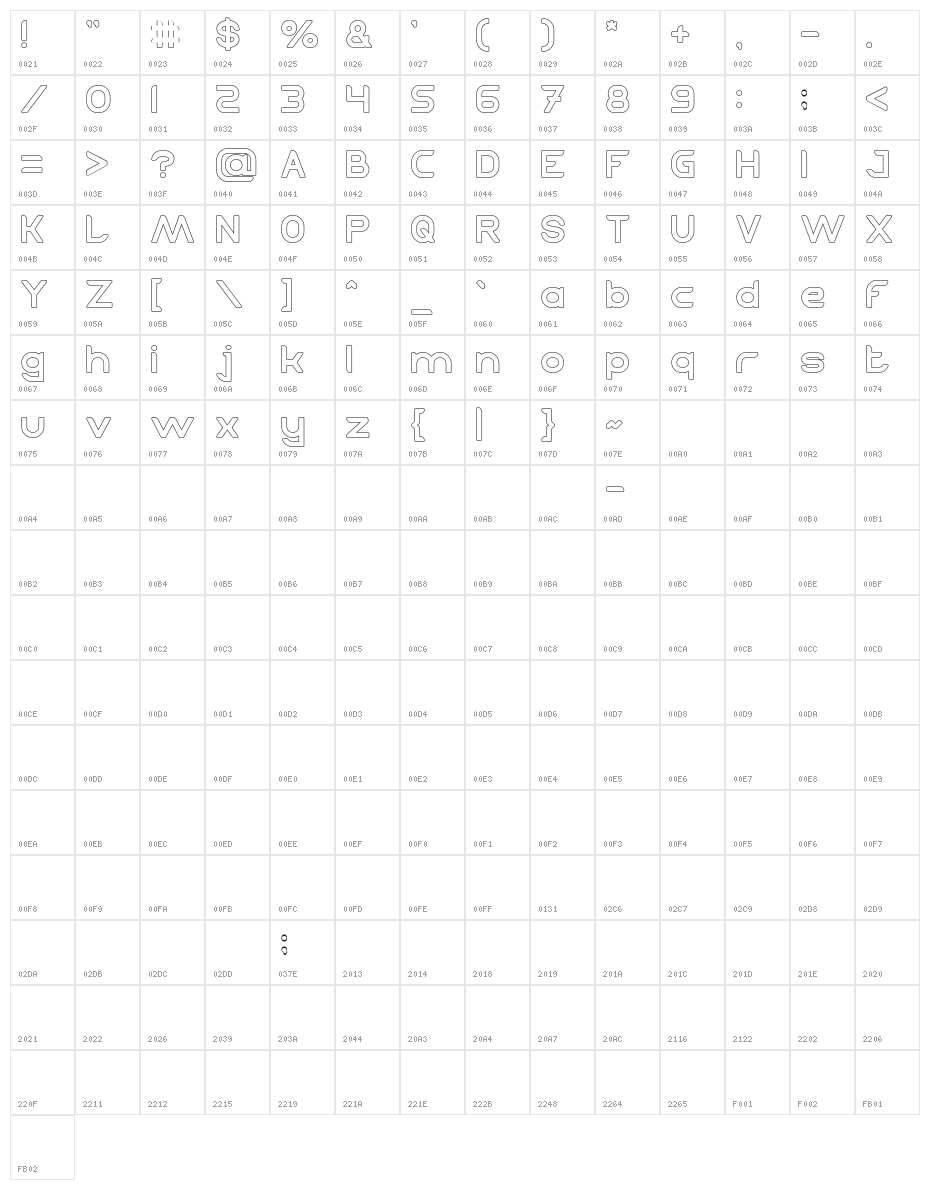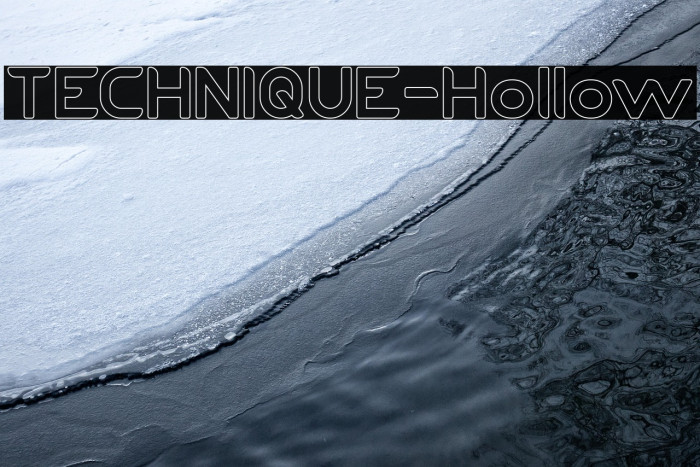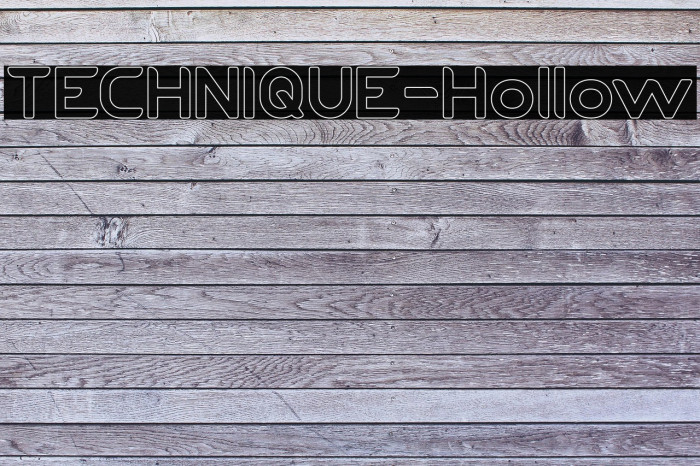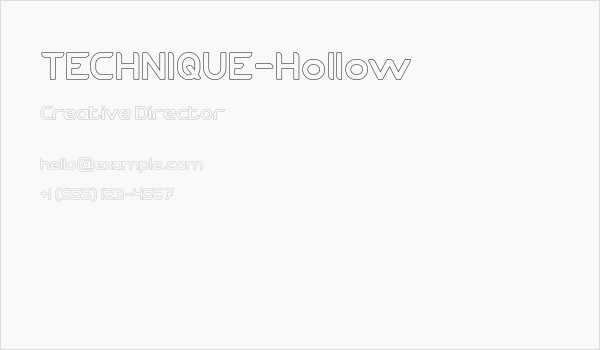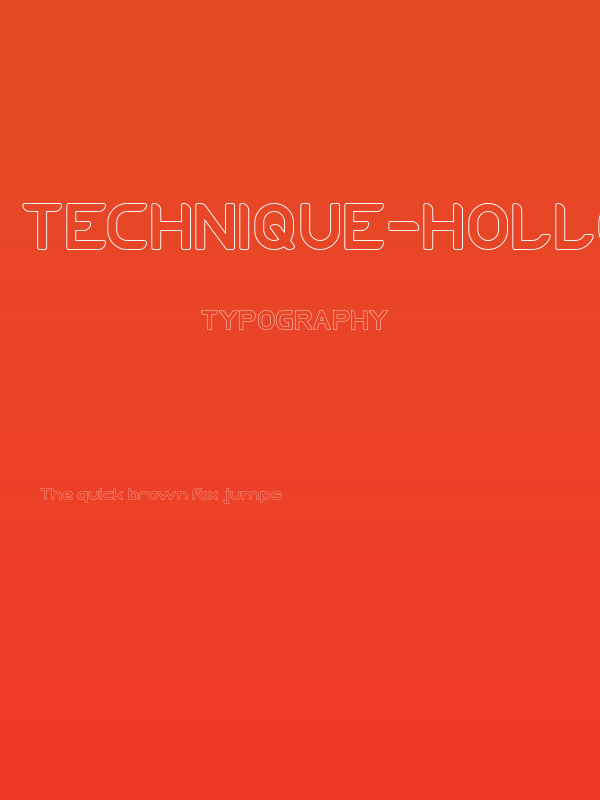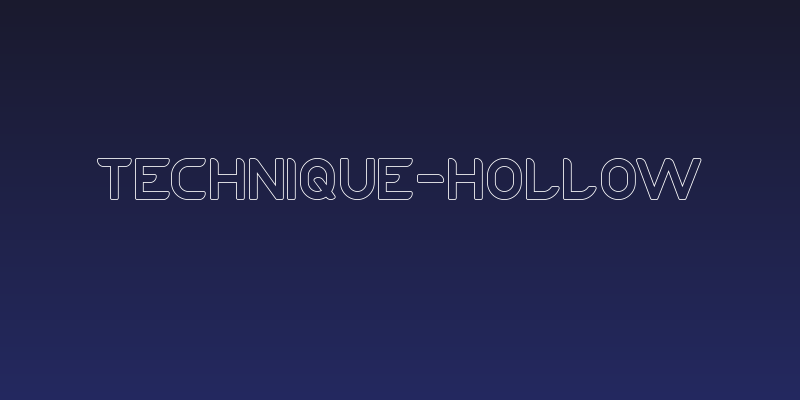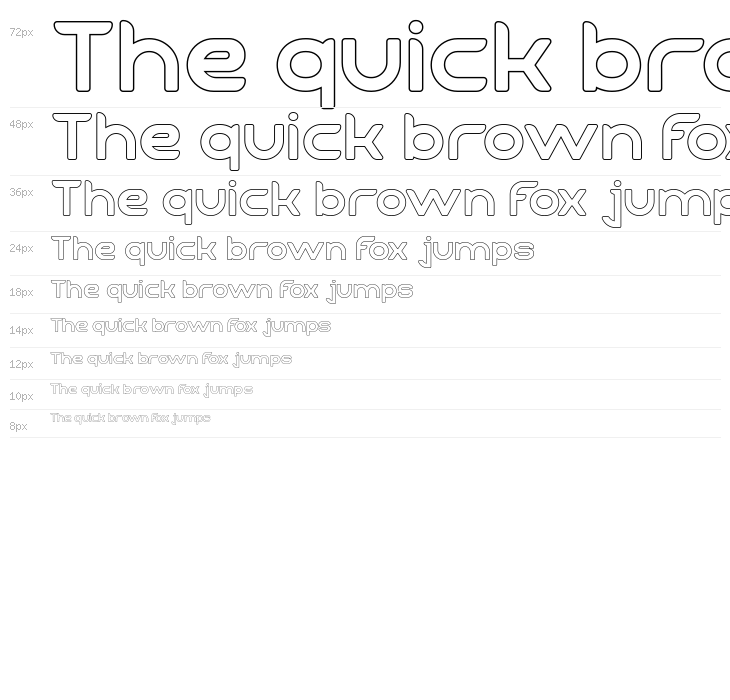
TECHNIQUE-Hollow Font
TECHNIQUE-Hollow Description
This font features a hollow, outlined design that gives it a modern and futuristic appearance. The characters are geometric and uniform, with clean lines and rounded edges that create a sense of openness and clarity. The uppercase and lowercase letters maintain a consistent style, while the numerals and special characters complement the overall aesthetic. This font's hollow nature makes it ideal for designs that require a light and airy feel, while still maintaining readability and impact.
TECHNIQUE-HOLLOW UPPERCASE
TECHNIQUE-HOLLOW LOWERCASE
TECHNIQUE-HOLLOW OTHER CHARS
| Proposed Projects | Ideal for futuristic branding, tech-related designs, posters, and digital interfaces where a modern and airy aesthetic is desired. |